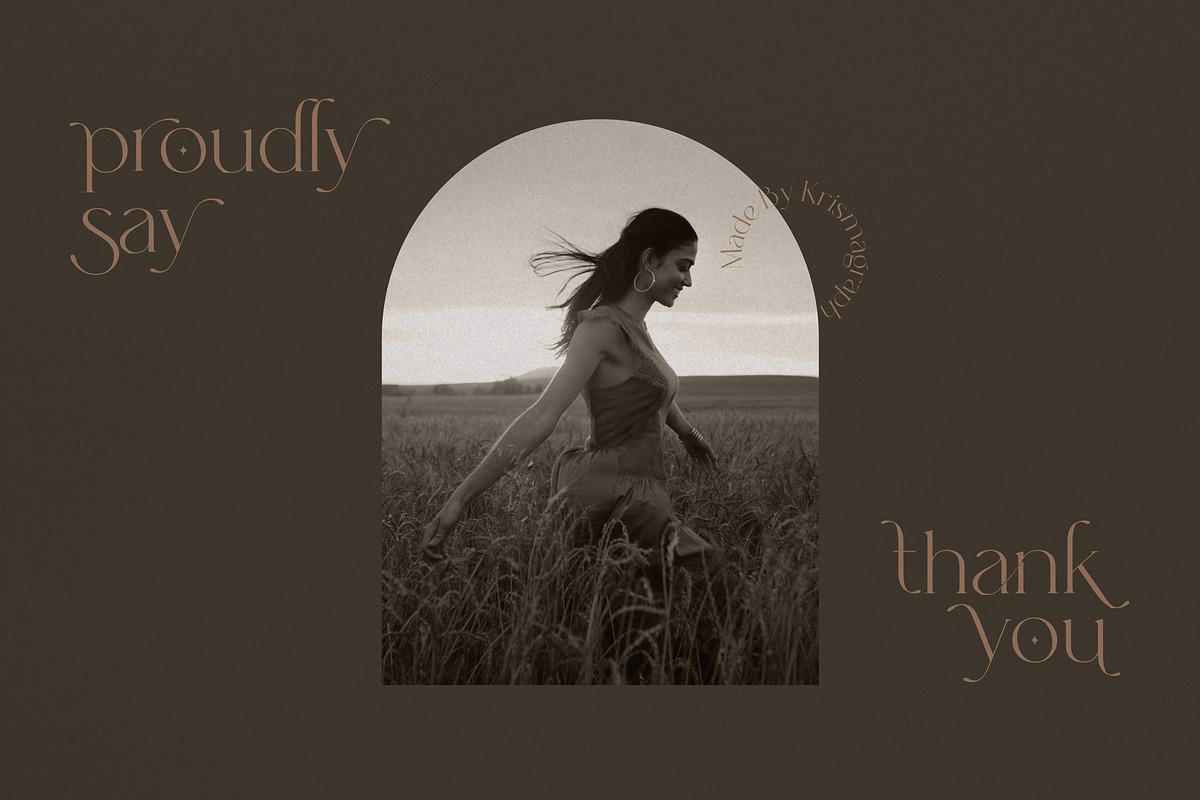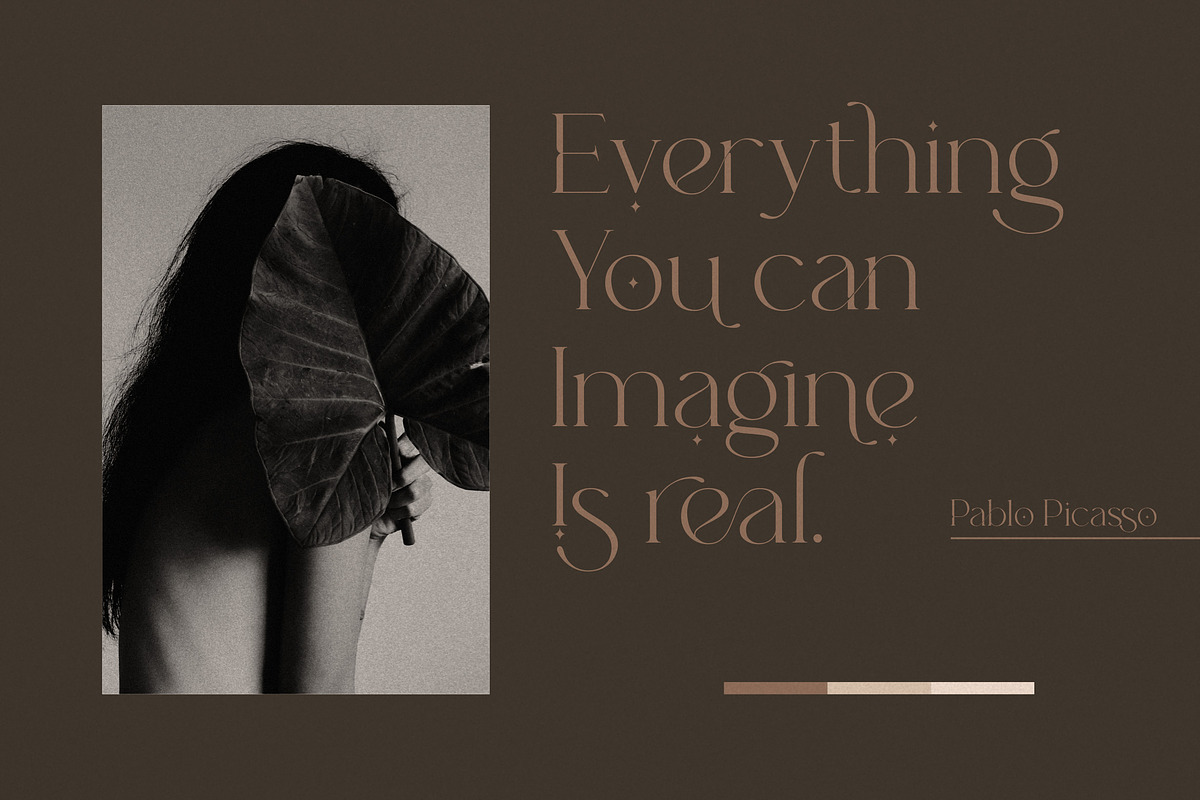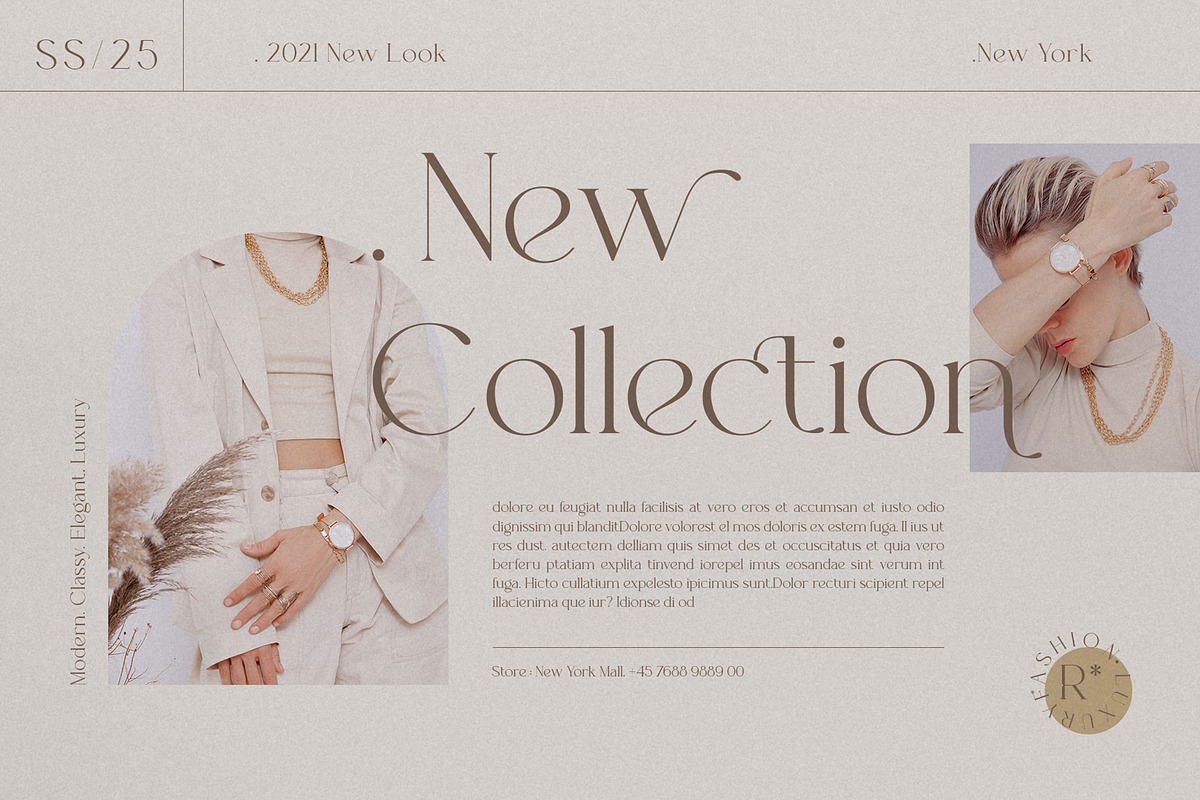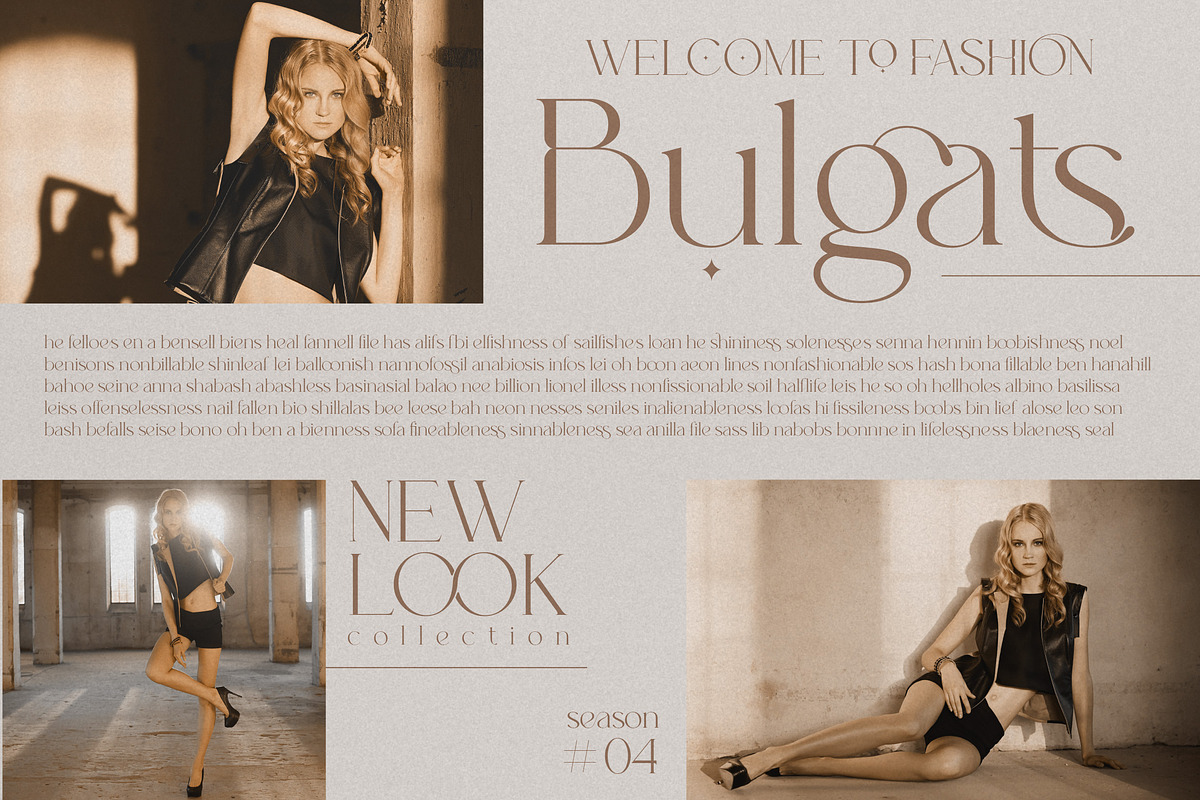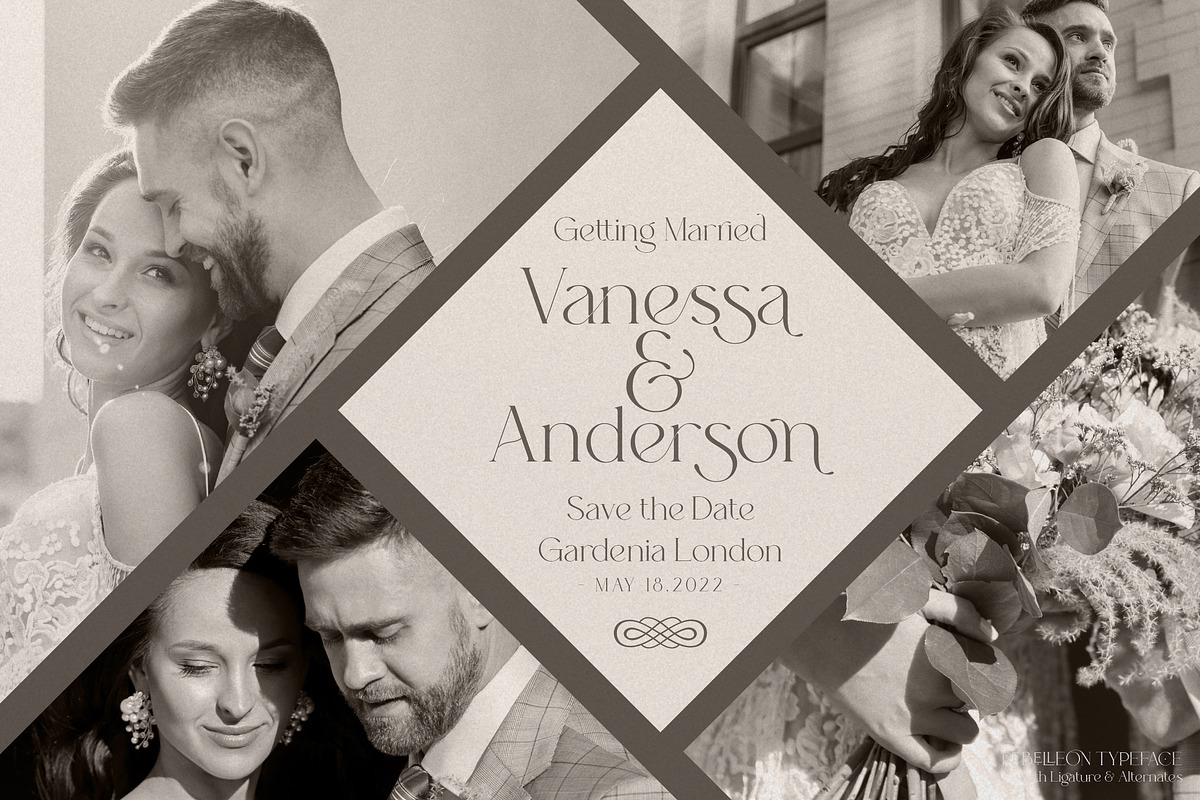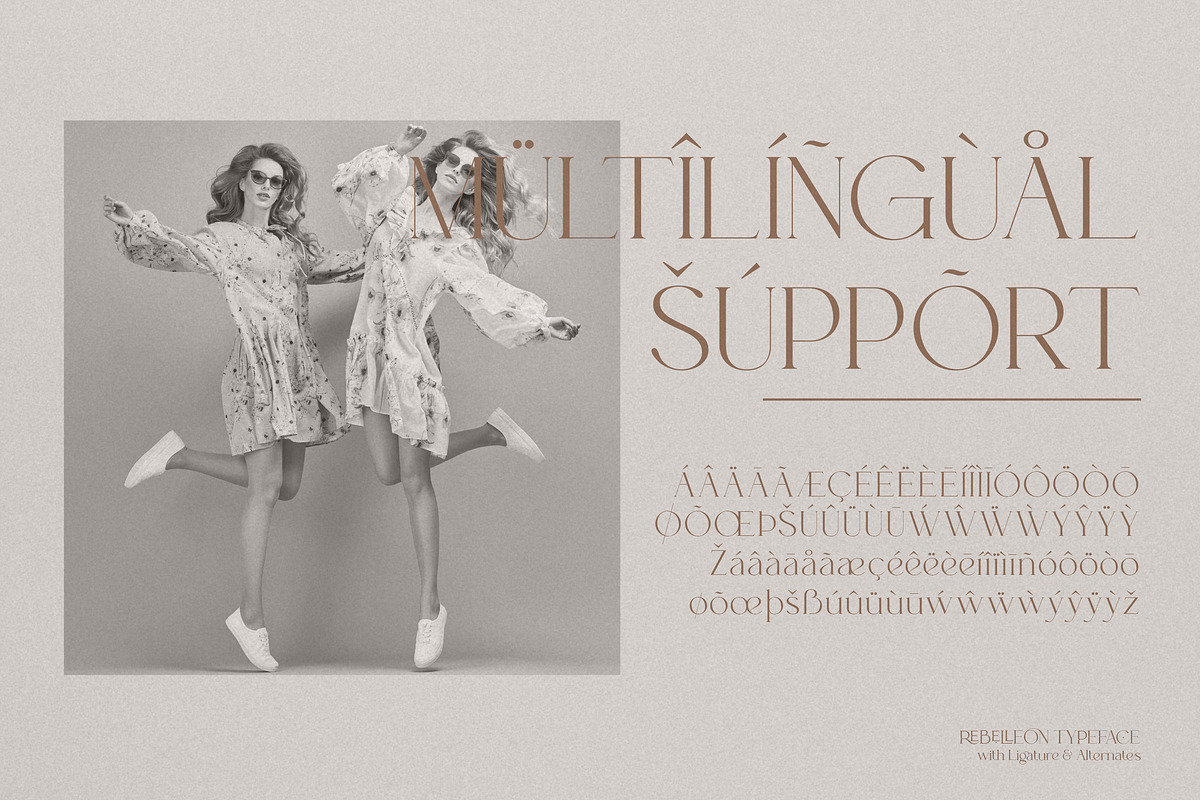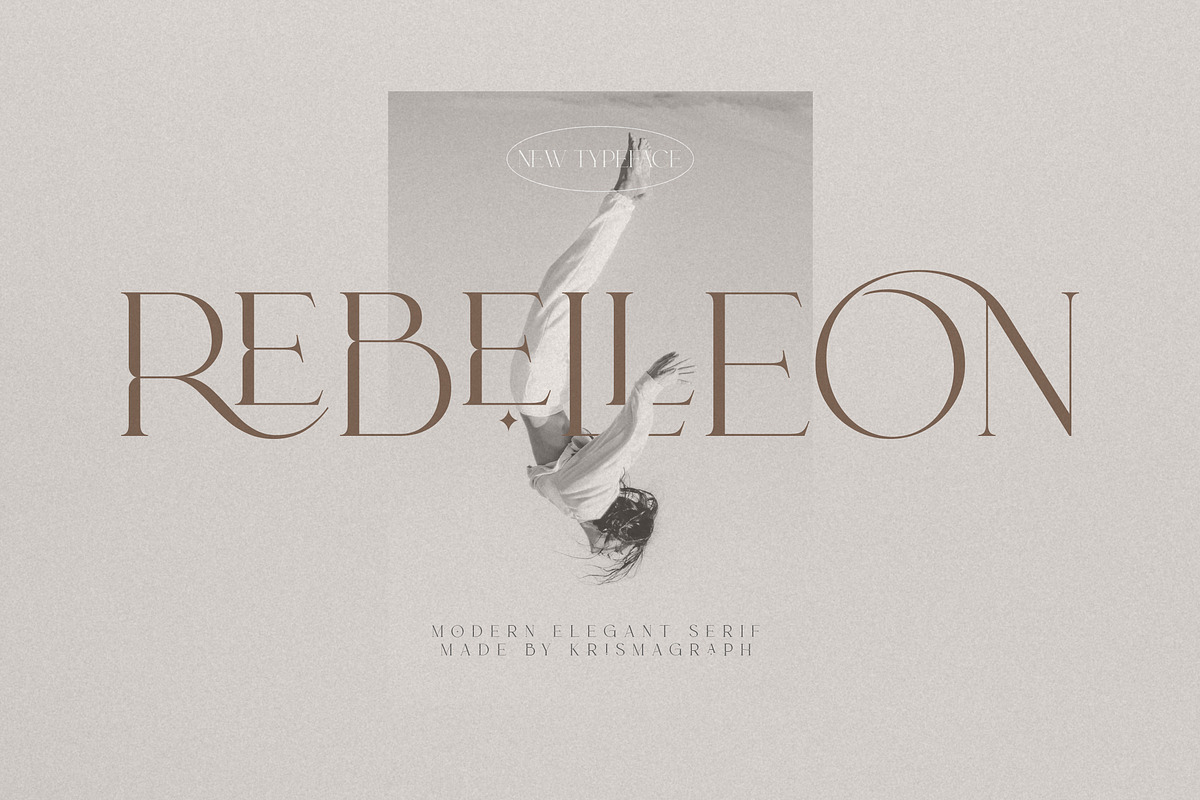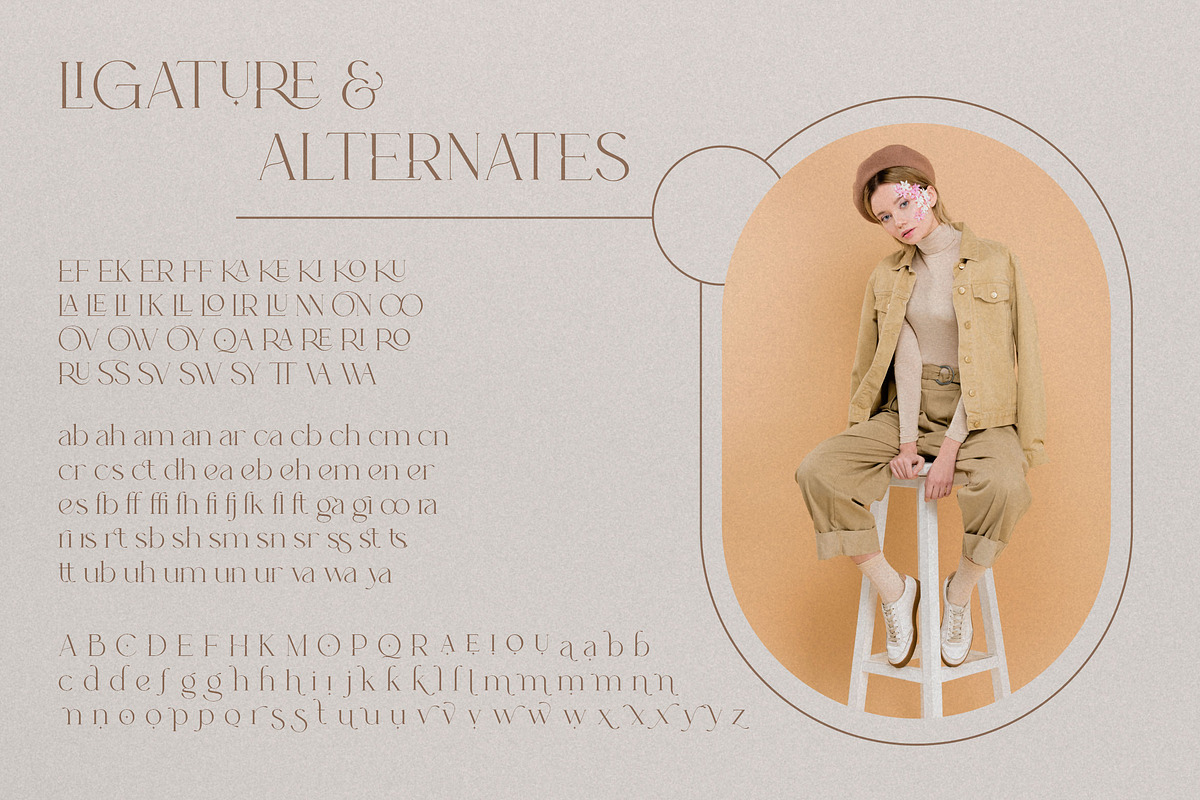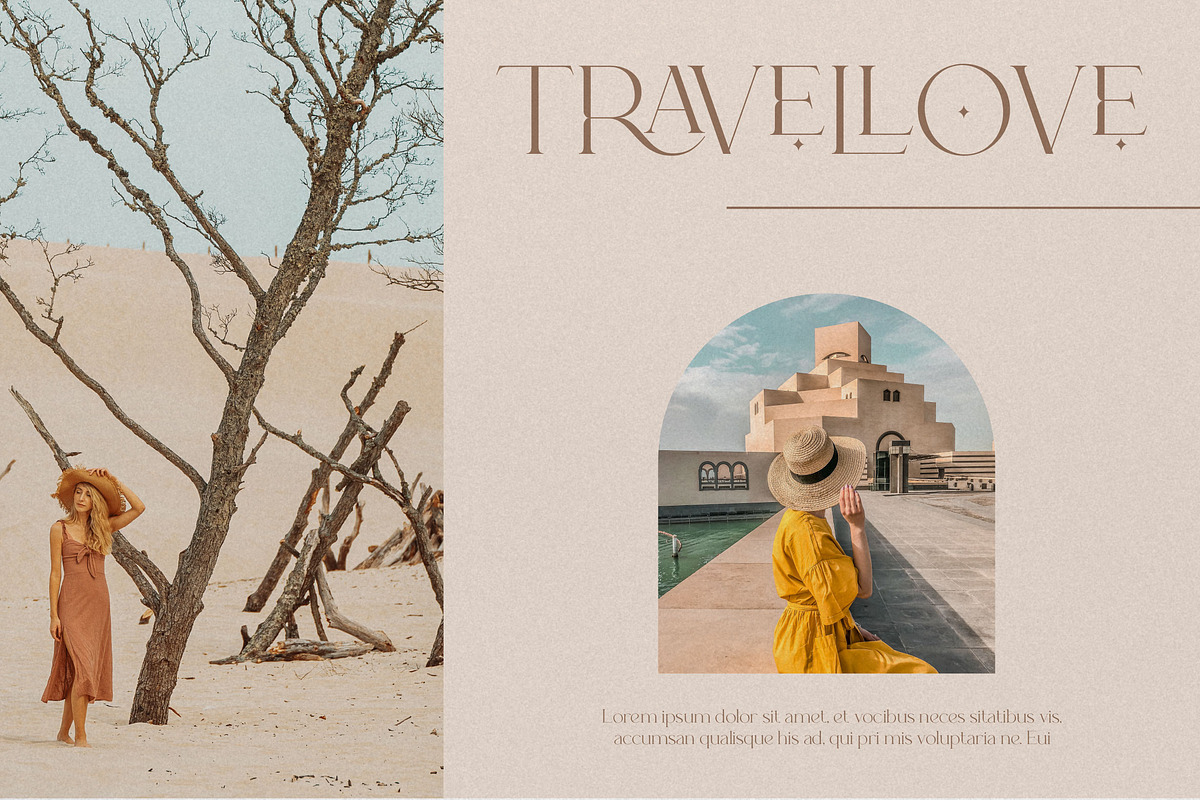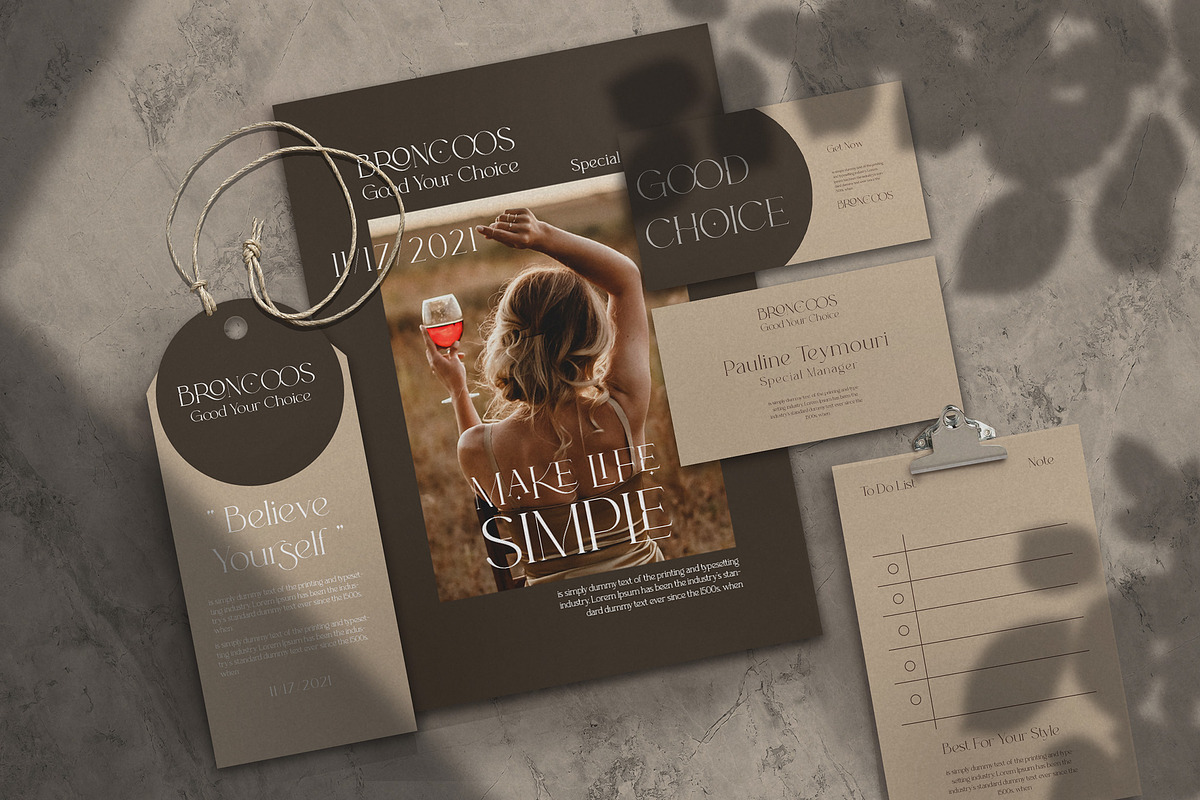
Rebelleon | Modern Elegant Serif
Rebelleon Typeface is a modern & elegant serif with ligature & more alternates. It’s soft curves mixed with high contrast glyphs lend it self to both feminine and masculine qualities. Equipped with epic ligature, great in layout design for quotes or body copy, and will be unique to the use of the logo design. And also multilingual support.
The font is gorgeous! There is a problem with multilingual symbols. At the preview I saw that I would get "č, ė, š, ū, ž ", only got "š" and "ž", though. Never had this problem before. Another thing and it's my problem, I didn't check to see whether the rest of Lithuanian language symbols would be available, assuming they would be, because I saw "ė" and others. But they weren't. It's a really beautiful font and I wish it was more developed.